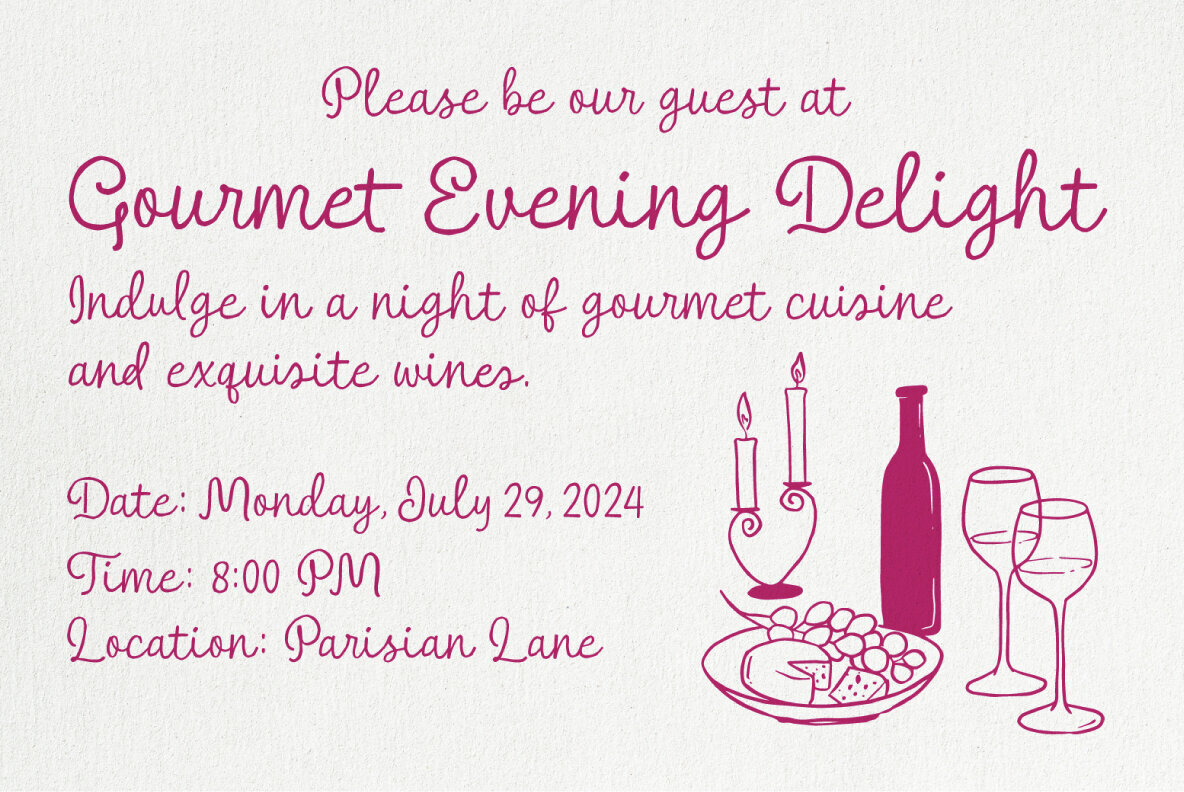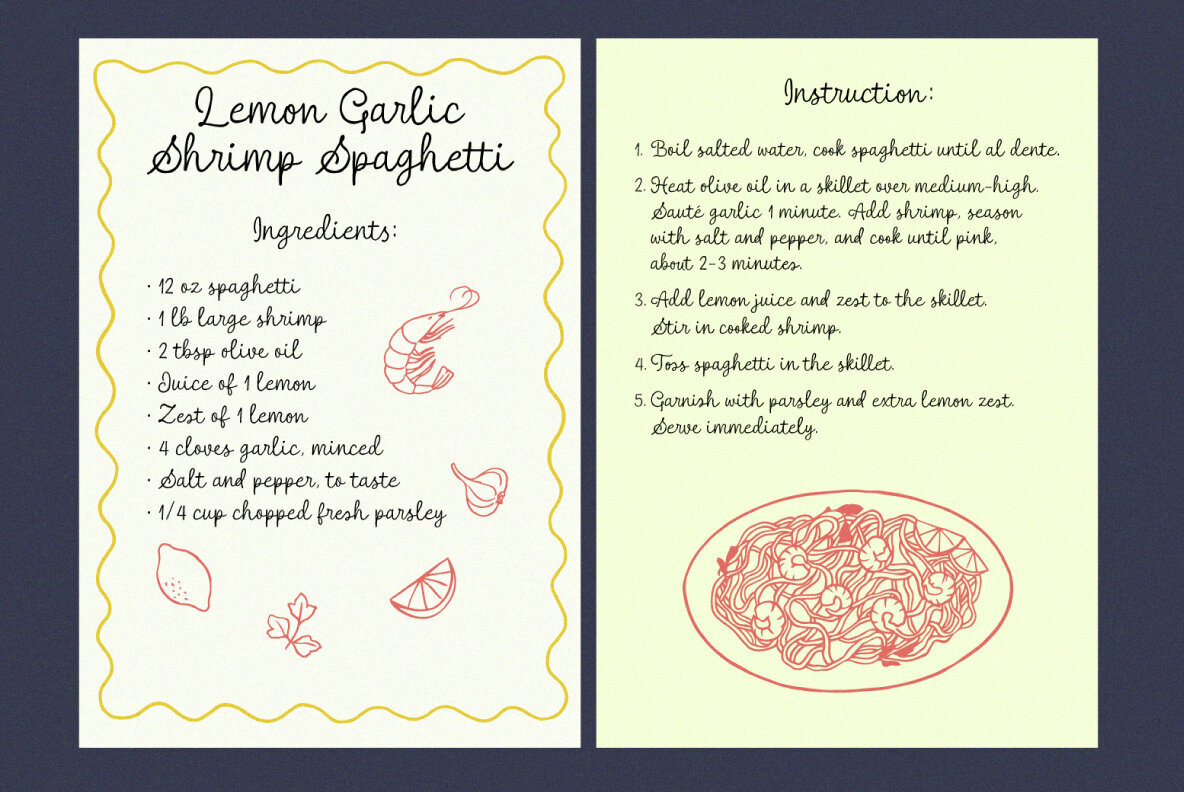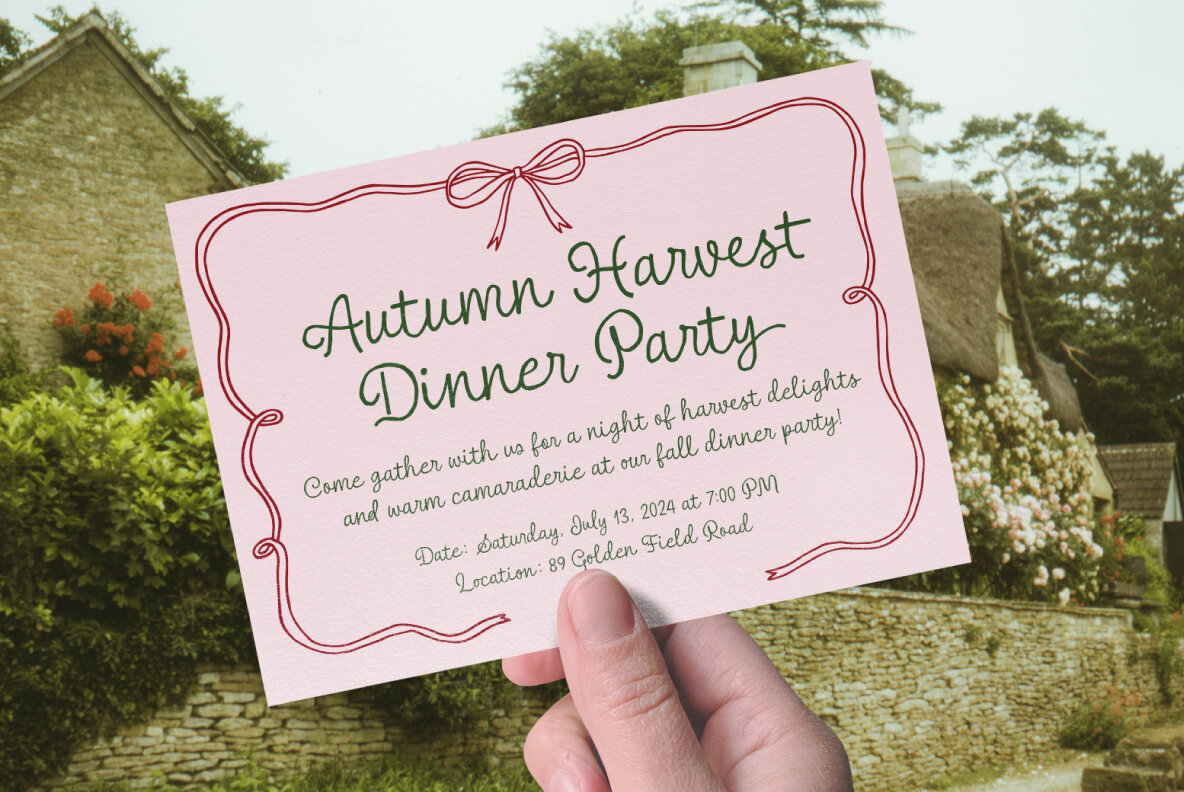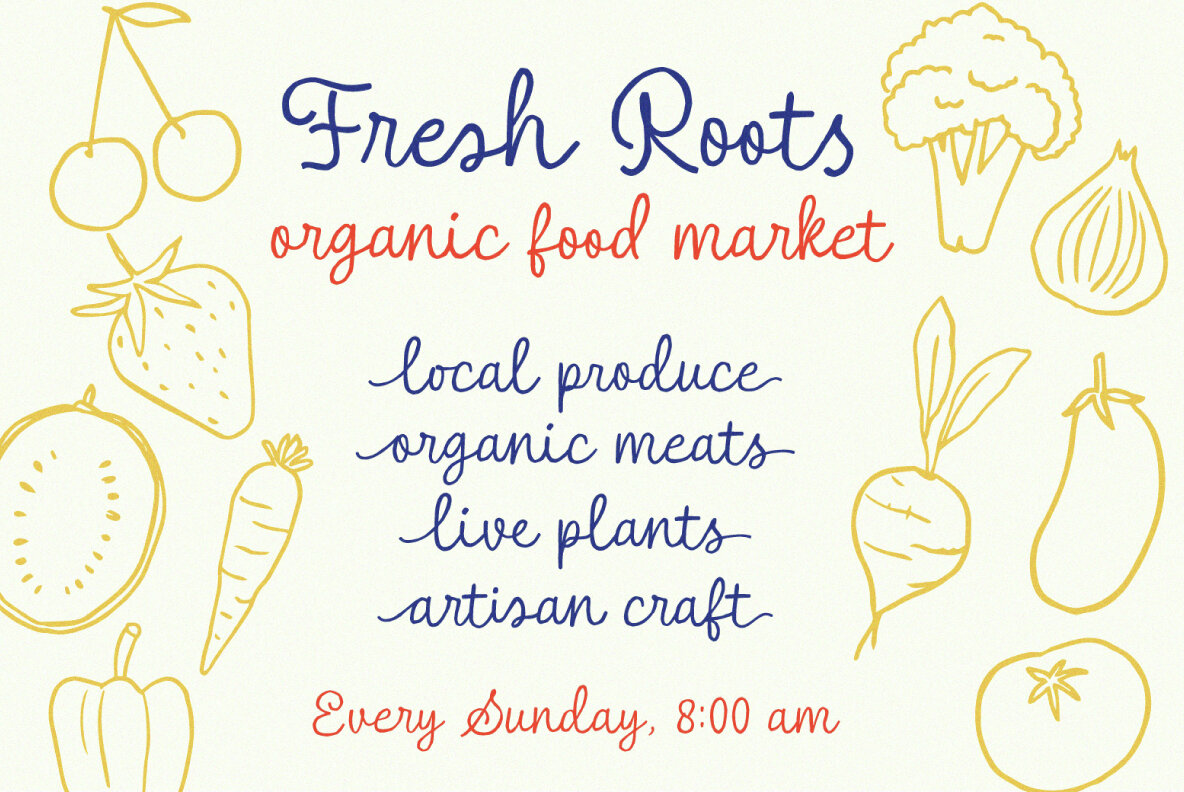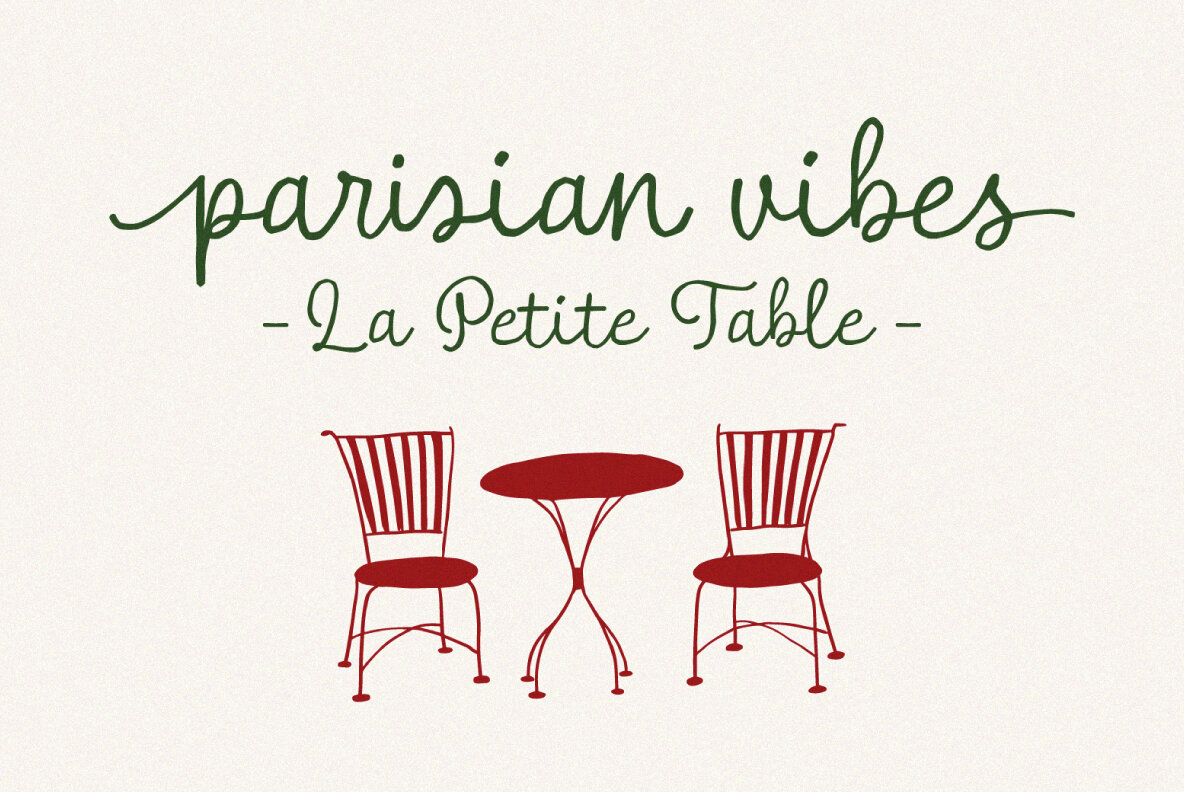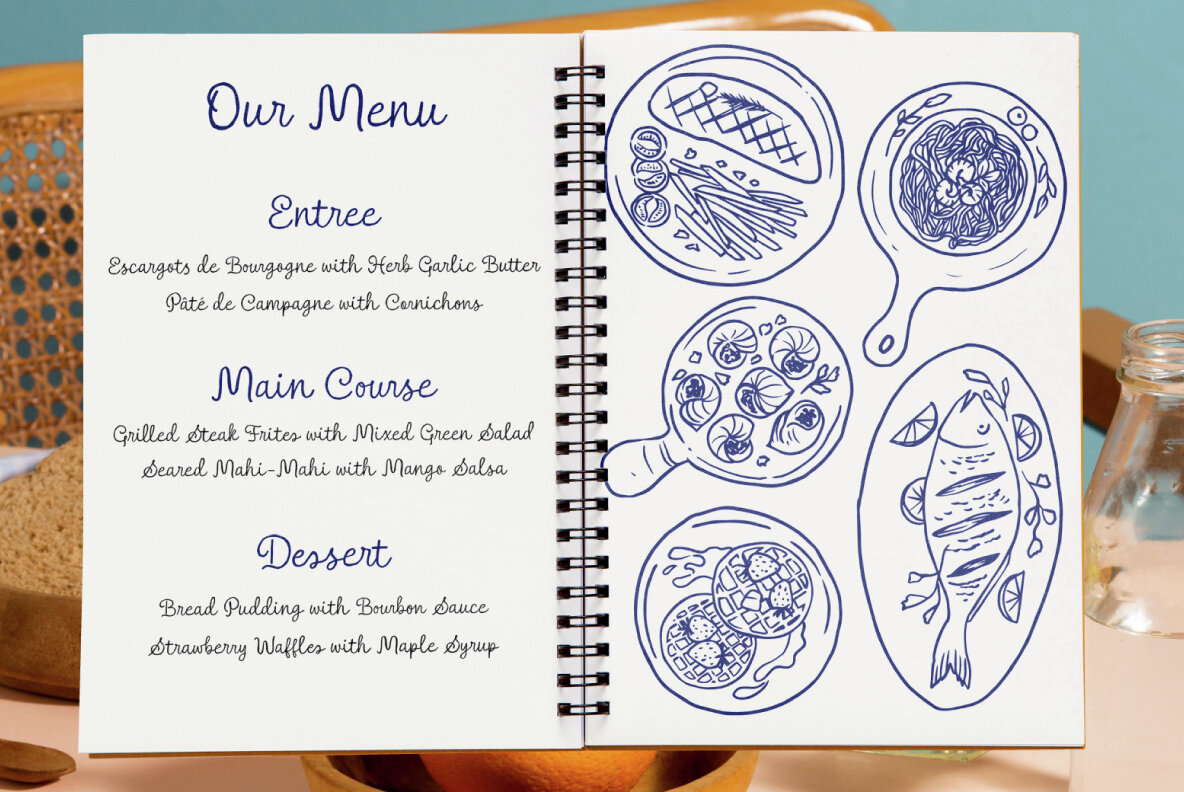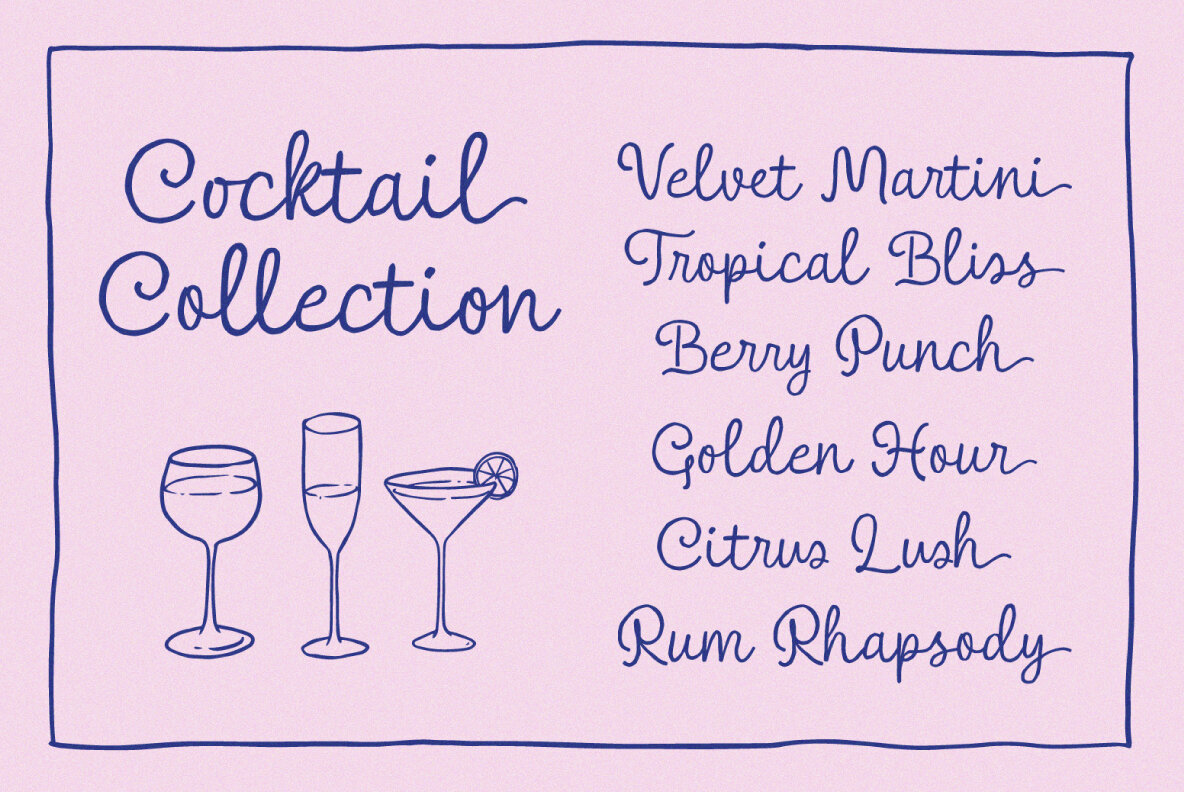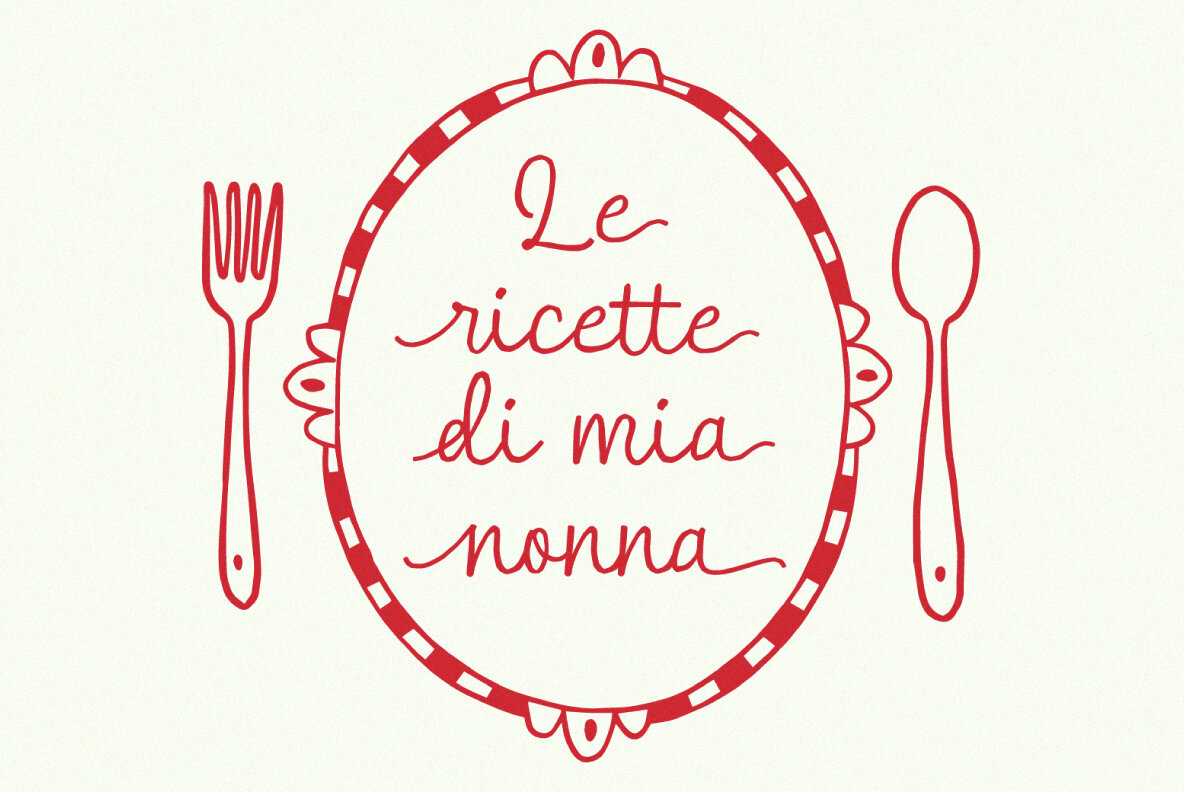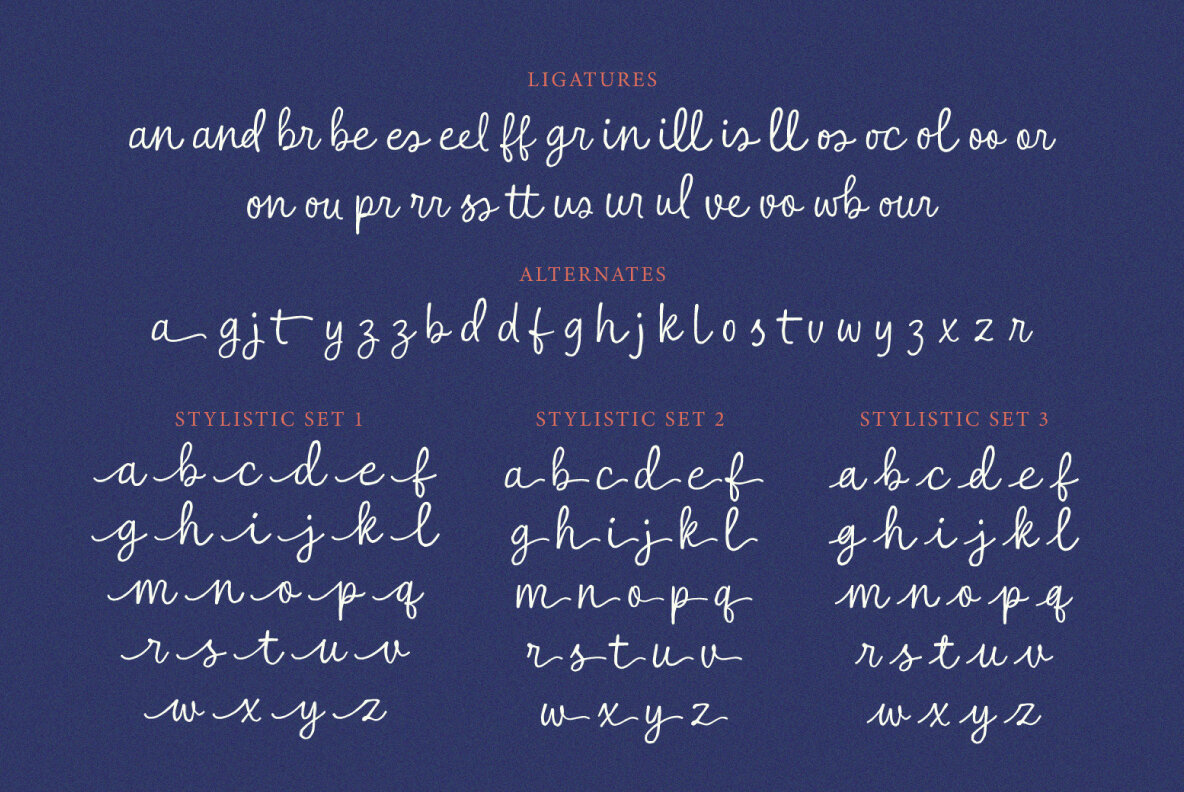
Tasteful Gourmet 1
Tasteful Gourmet is a script font that designed to capture the essence of a quaint bistro and the comfort of rustic kitchens. This font adds an authentic, homey feel to any culinary project. Elevate your culinary creations with a font that evokes the simplicity and warmth of country living, perfect for any rustic-themed cookbook, menus, dinner party invitation, and so on.